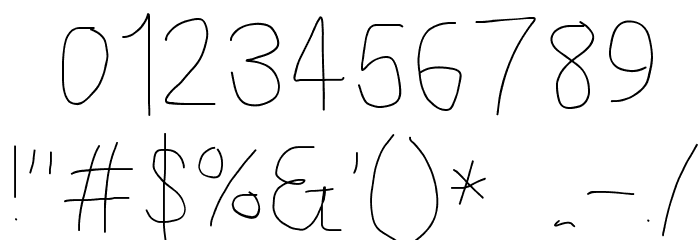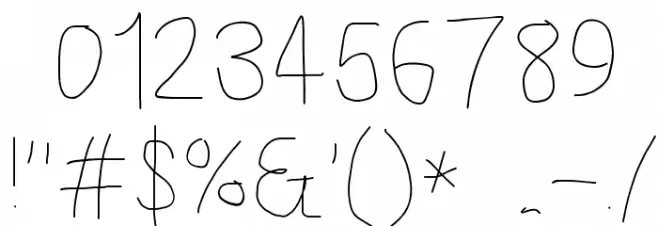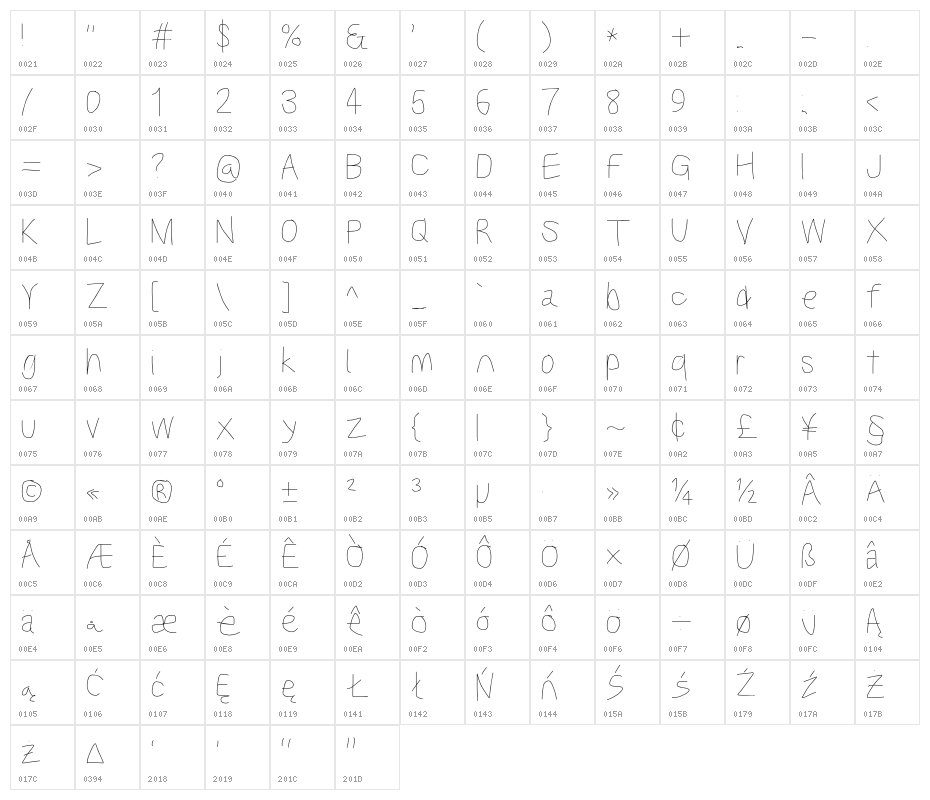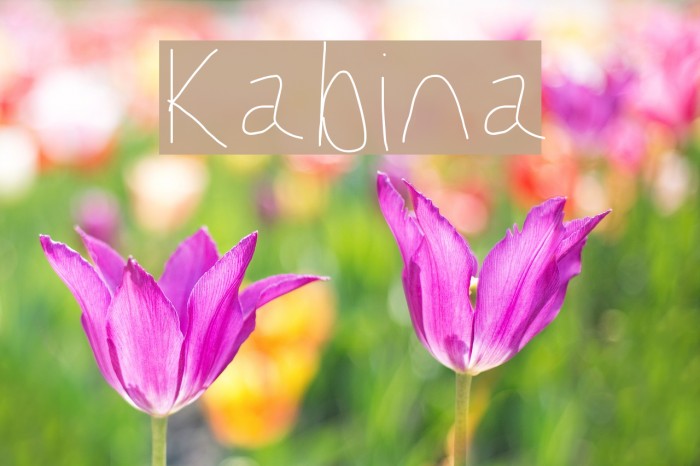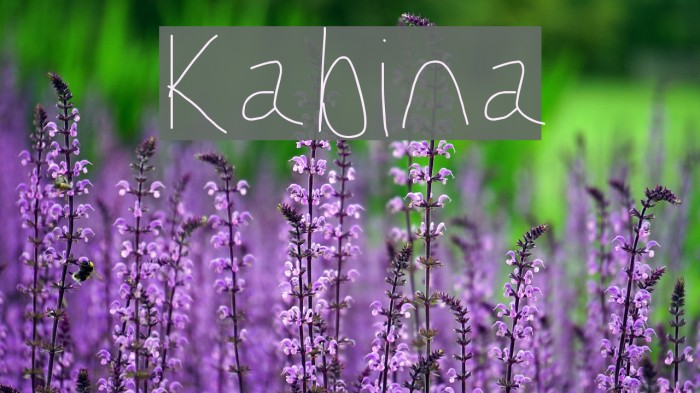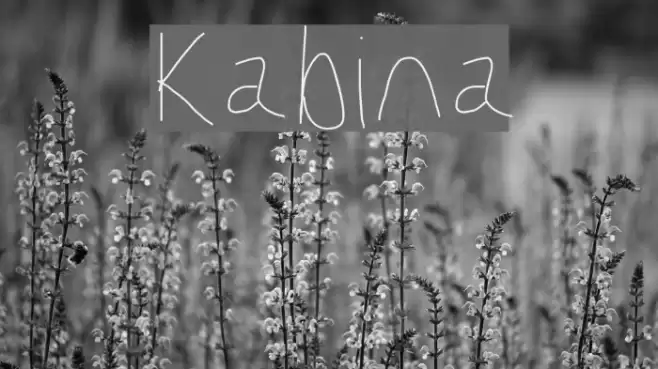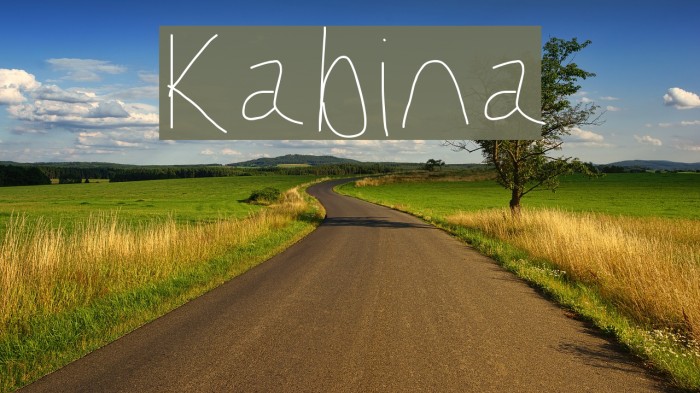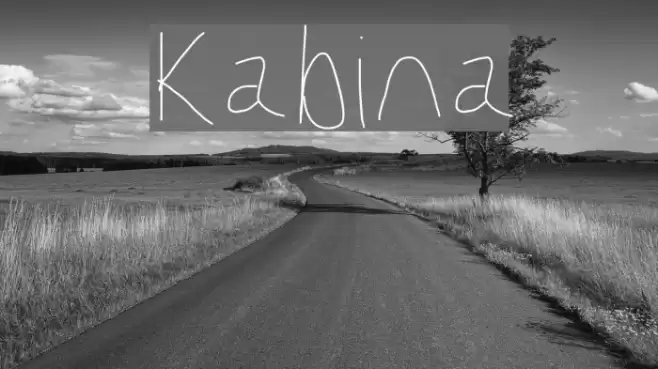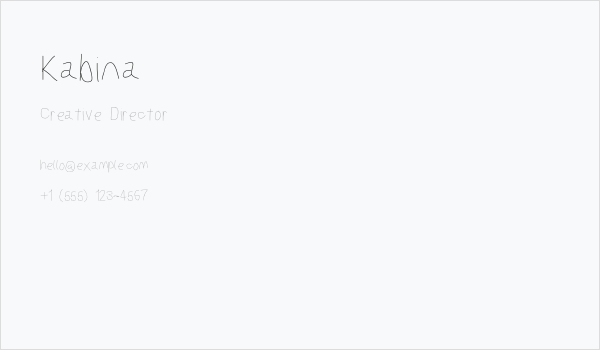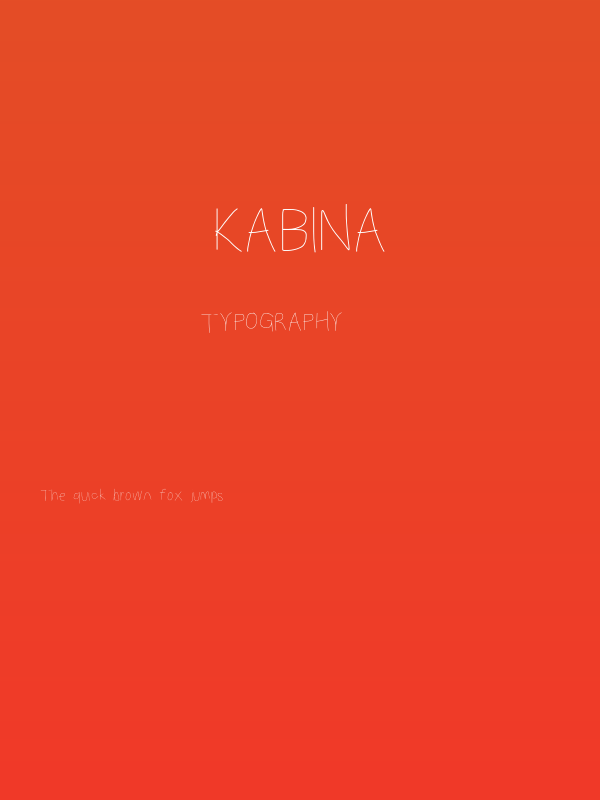
Kabina Font
Kabina Description
This font features a playful and casual handwritten style, characterized by its thin, slightly uneven strokes that give it a relaxed and informal appearance. The letters are tall and narrow, with a consistent height across both uppercase and lowercase characters. The rounded edges and slight slant add to its approachable and friendly feel. The numerals and special characters maintain the same whimsical quality, making it suitable for projects that require a personal touch. Its simplicity and clarity ensure readability while retaining a unique charm.
| Use Case | Headlines, Informal text, Personal projects |
| Proposed Projects | Ideal for greeting cards, personal notes, children's books, and informal branding. |